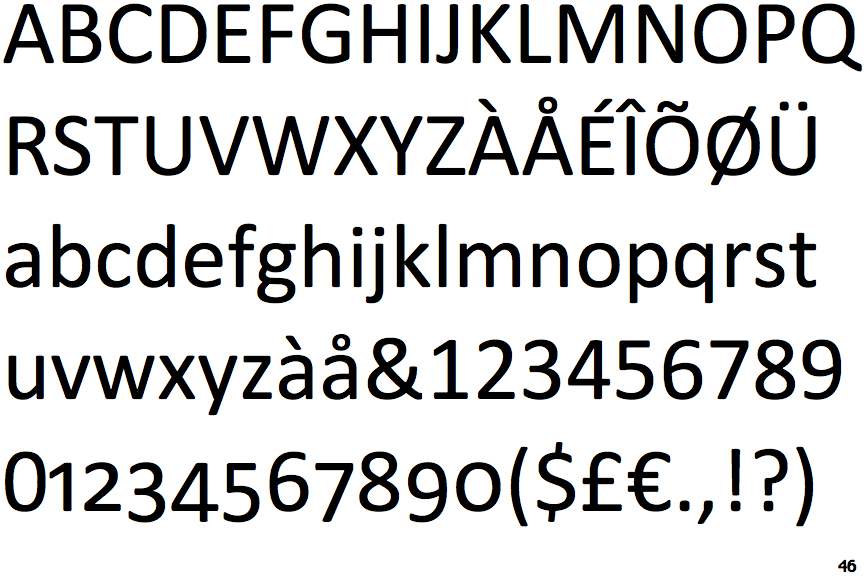
Font Similar To Calibri In Adobe Acrobat
The Mako Font Has An Elegant Clean Texture.
Seravek And Fort Are Both Sharper Than Calibri—Seravek Is Similarly Narrow, While Fort Is Wider And More Open.